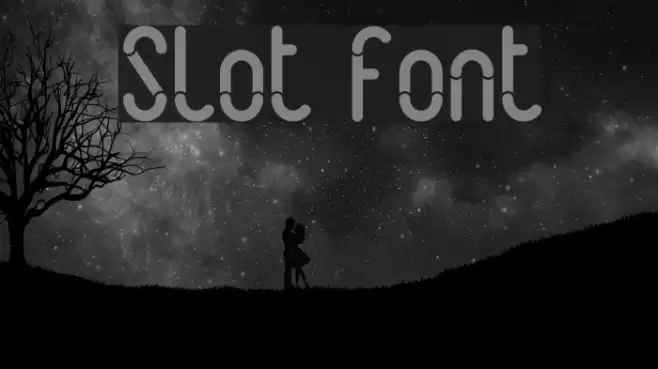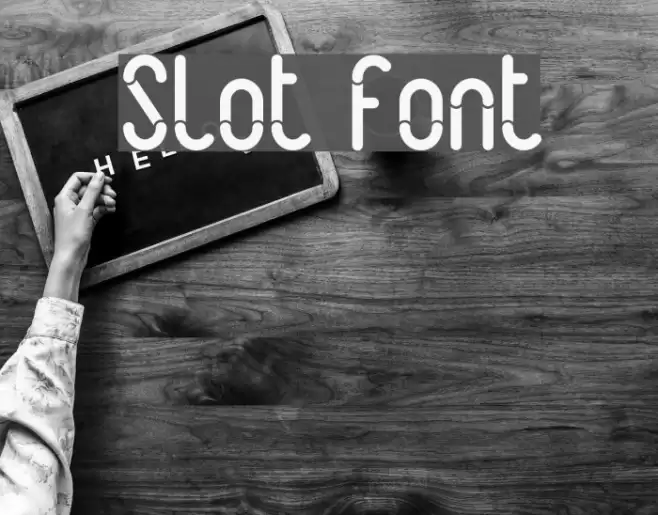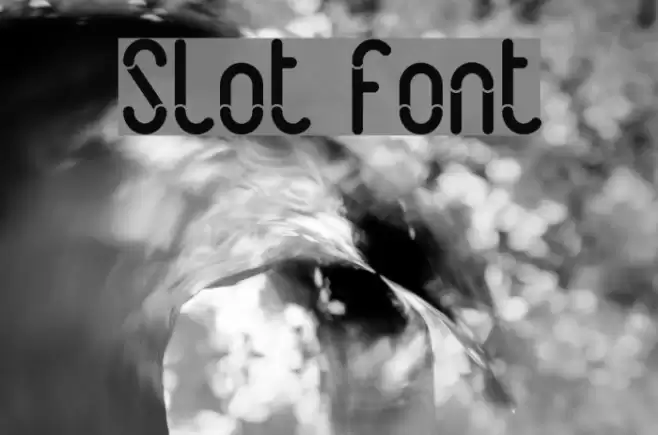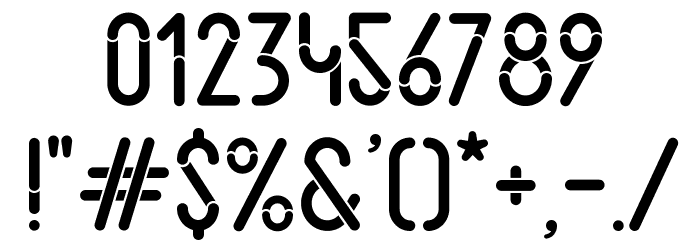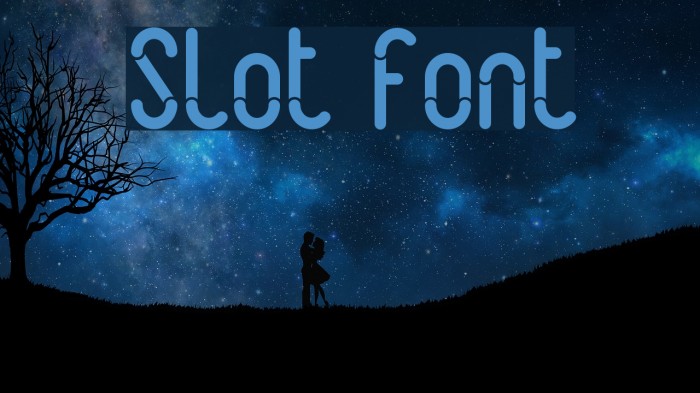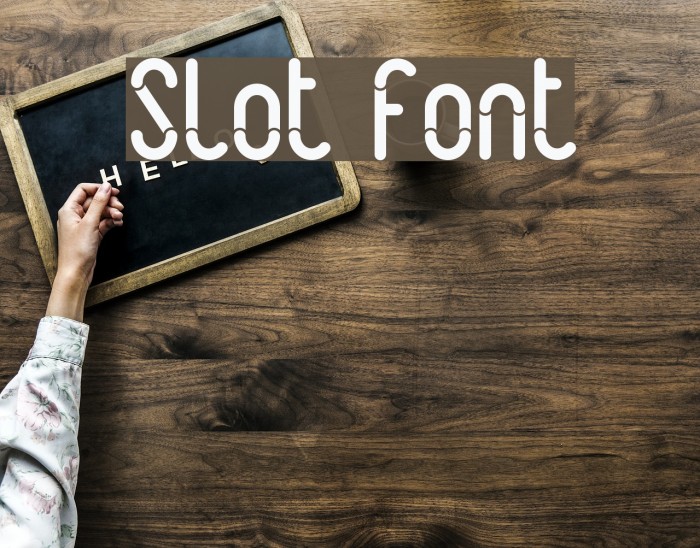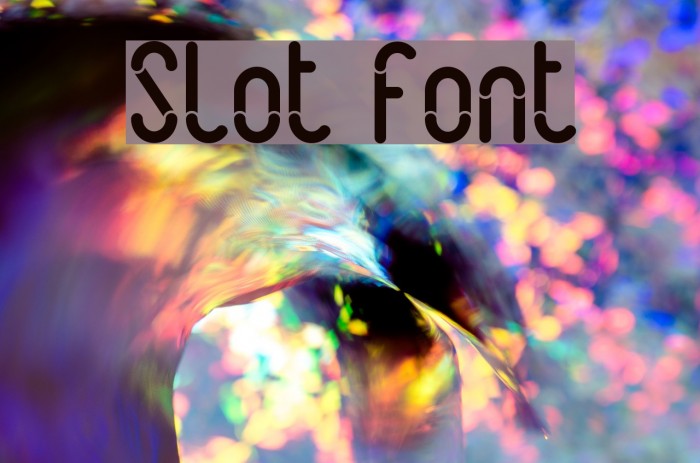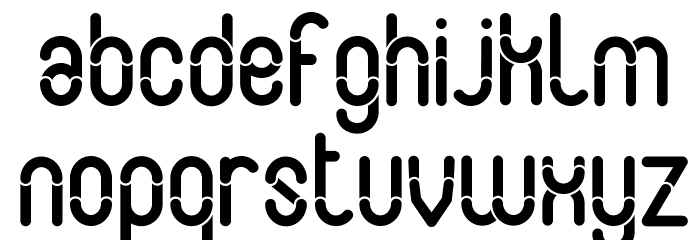
Slot Font
Slot Description
This font features a unique, modern design with a distinct geometric style. The characters are composed of rounded edges and consistent line thickness, creating a futuristic and clean appearance. The uppercase and lowercase letters maintain a uniform height, contributing to a cohesive look. The numerals and special characters follow the same design principles, ensuring visual harmony across all elements. The font's design is both eye-catching and legible, making it suitable for various creative applications.
A modern, geometric font with rounded edges and consistent line thickness from Uncategorized fonts.
- Proposed Projects: Ideal for branding, advertising, digital interfaces, and modern print designs.